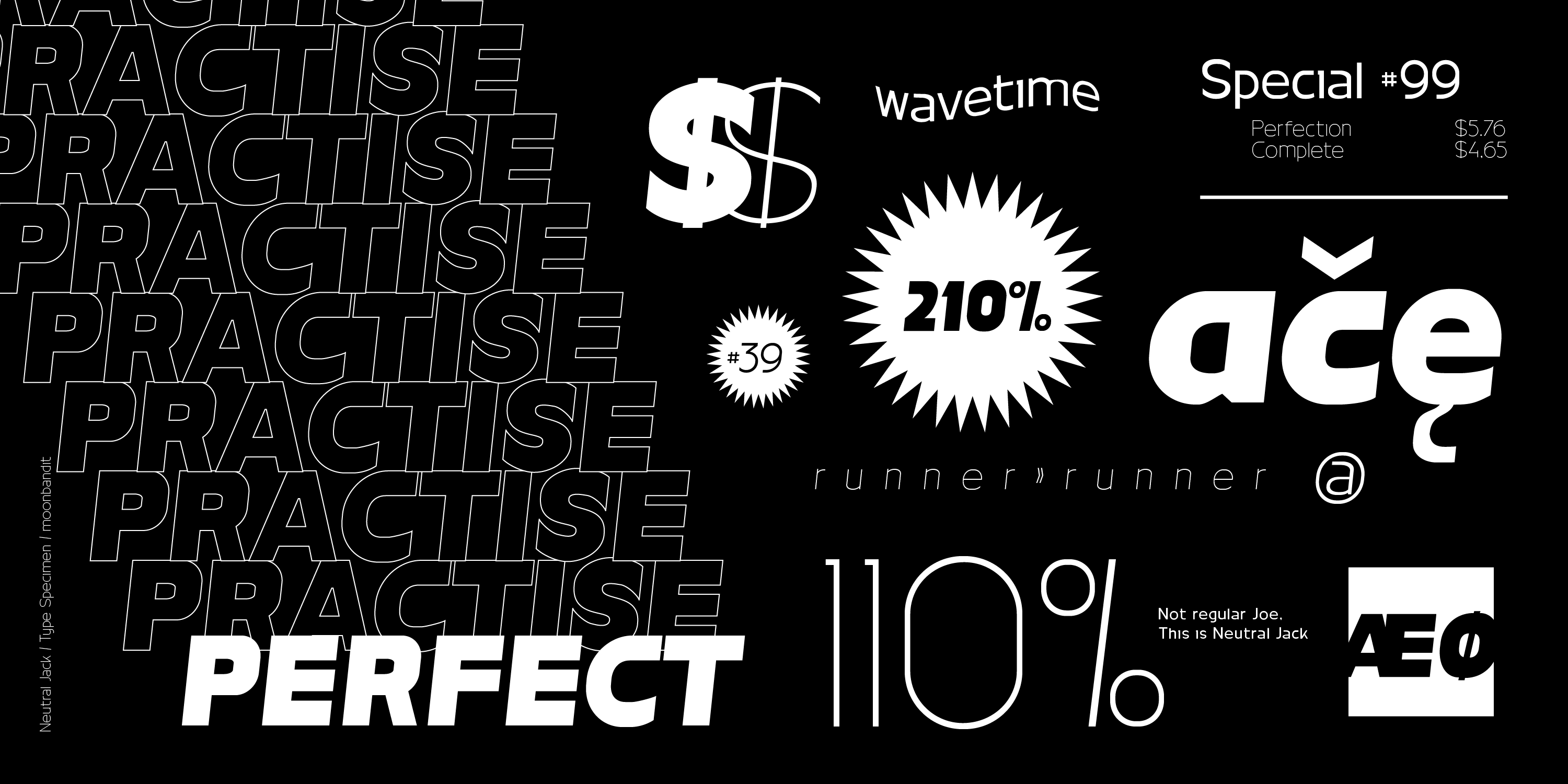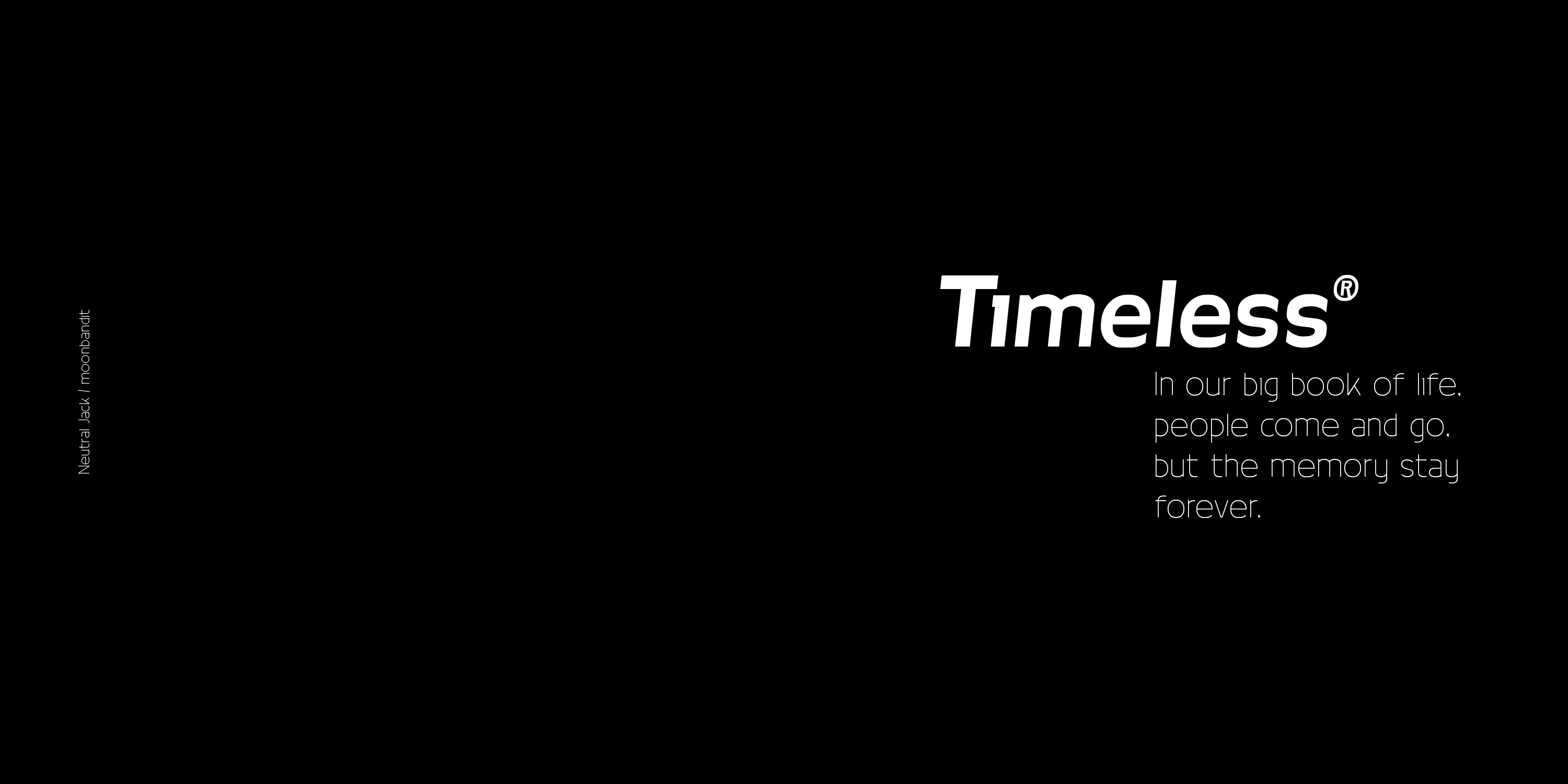
MBF Neutral Jack Extra Light
MBF Neutral Jack Light
MBF Neutral Jack
MBF Neutral Jack Bold
MBF Neutral Jack Black
MBF Neutral Jack Extra Light Italic
MBF Neutral Jack Light Italic
MBF Neutral Jack Italic
MBF Neutral Jack Bold Italic
MBF Neutral Jack Black Italic
Neutral jack is a modern, clean and versatile all purpose go-to font. This typeface comes in 10 styles from extra light to black. Utilize them all for maximum result.